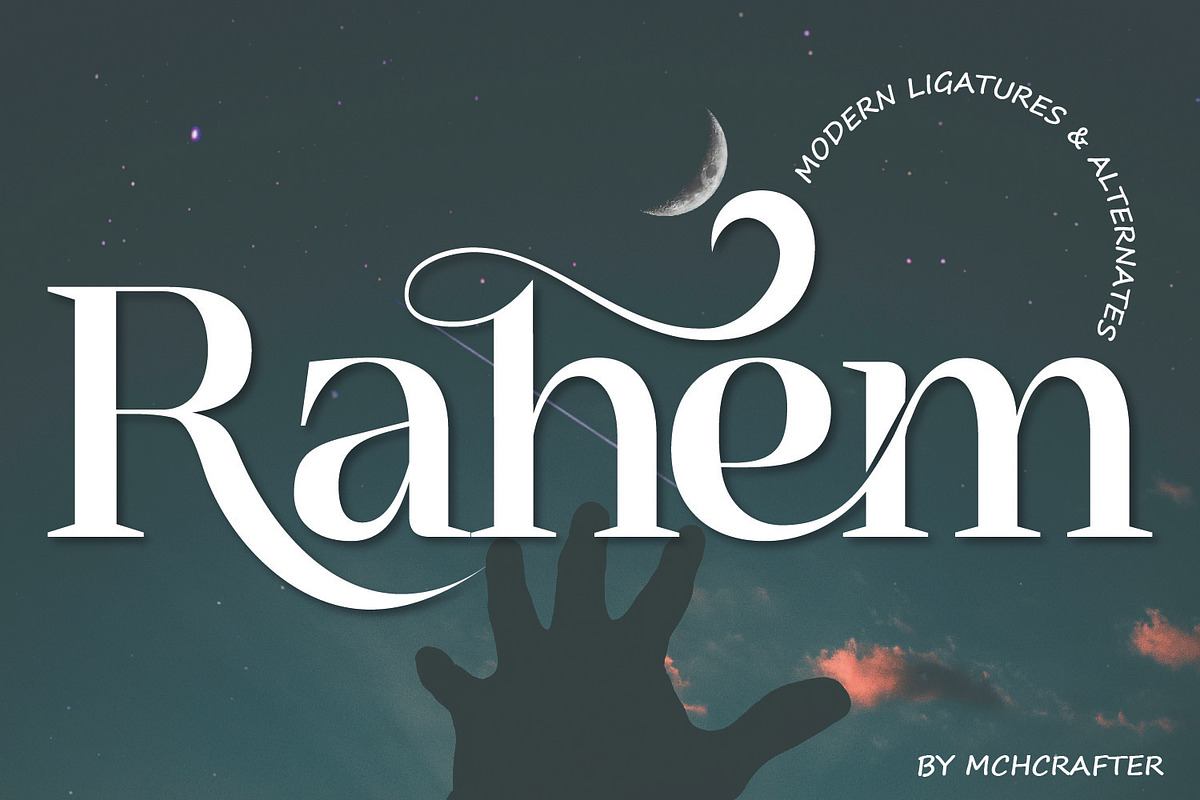
Rahem | Modern Serif Font Free Download
Rahem | Modern Serif Font Free Download is a sophisticated and sleek typeface designed to bring a modern, clean feel to your designs. With its sharp serifs and elegant letterforms, this font is perfect for creating high-end logos, branding materials, editorial designs, websites, and more. Its balanced design makes it ideal for both professional and creative projects, offering clarity and elegance. Whether you're designing for a luxury brand, working on a modern magazine layout, or crafting a stylish advertisement, Rahem | Modern Serif Font Free Download allows you to explore its unique style in personal projects before purchasing a commercial license. Elevate your designs with the timeless sophistication of this beautifully crafted modern serif font.